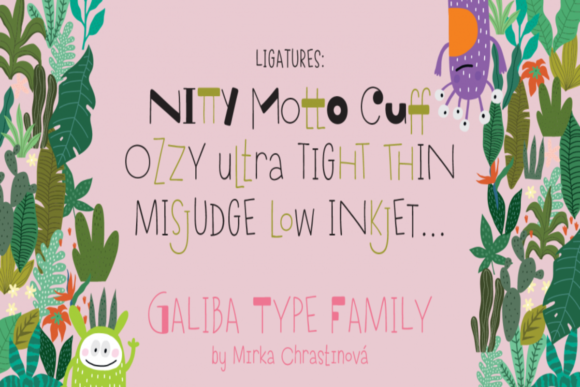
Step into the world of Galiba, a hand-drawn display font that will make your designs shine like never before. Crafted by the talented Mirka Chrastinová and published by Juraj Chrastina, Galiba offers three distinct styles to cater to your every creative whim.
Unleash your imagination with Galiba Regular, a playful and eye-catching font perfect for capturing attention. Its dynamic character dances across the screen, with four unique variants of each glyph cycling seamlessly to create a mesmerizing effect.
Embrace the delicate charm of Galiba Light, a font tailored for smaller sizes. Its ethereal presence adds a touch of elegance to your words, while still maintaining the same line thickness as its Regular counterpart.
Discover the versatility of Galiba Thin, a font that defies boundaries. Its slender lines and graceful curves bring a touch of sophistication to any design, inviting your audience to linger and explore.
But Galiba is more than just a collection of fonts; it's a gateway to endless creative possibilities. OpenType features such as alternates, ligatures, and stylistic sets empower you to customize your designs with ease, transforming your words into captivating works of art.
Let Galiba be the voice of your brand, capturing the essence of your message with its captivating hand-drawn aesthetic. Whether you're creating eye-catching logos, captivating posters, or dynamic social media graphics, Galiba will make your words dance off the page and into the hearts of your audience.